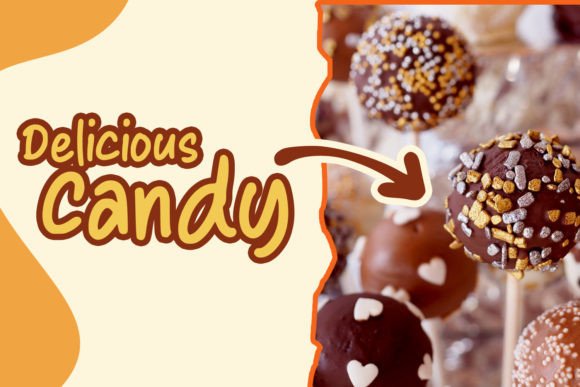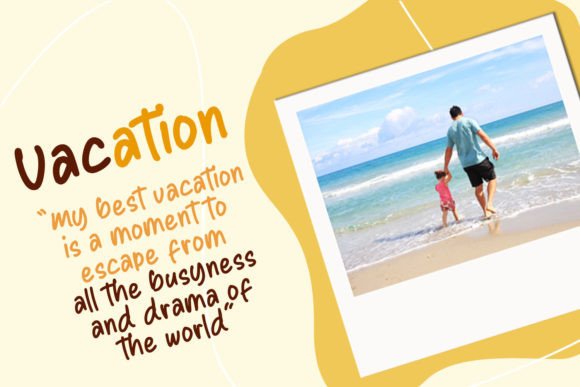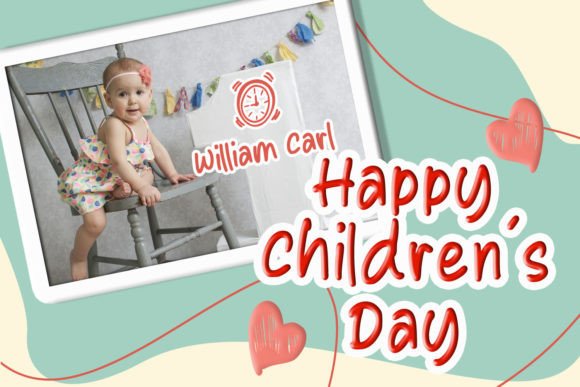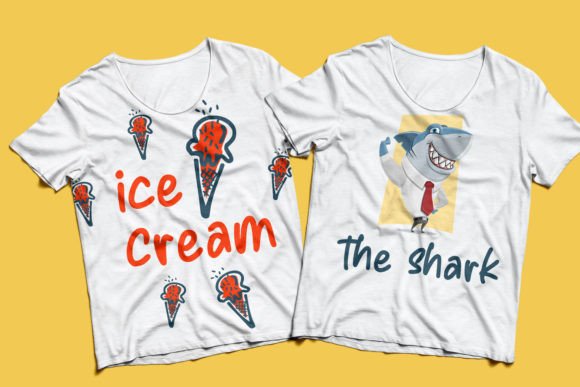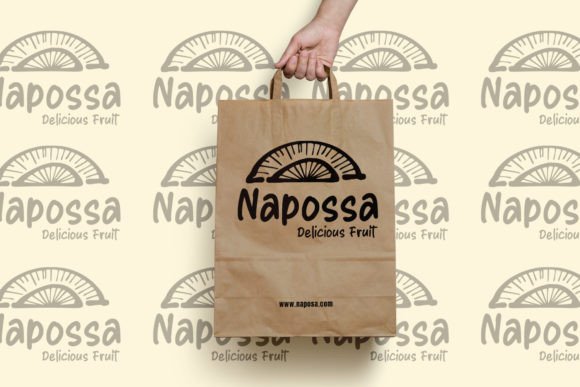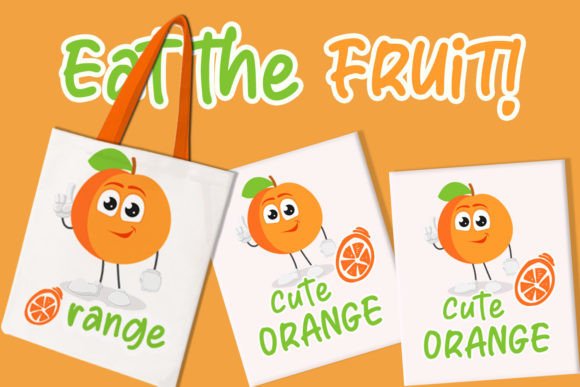
Aurell Font: Add a Playful Touch to Your Designs
Aurell is a fun display font that can instantly elevate your designs with a playful accent. This versatile font is perfect for creative projects that require a touch of whimsy and personality. In this article, we’ll explore the features and uses of Aurell font, and how it can be a valuable addition to your design toolkit.
What is Aurell Font?
Aurell is a display font designed to make a statement. Its playful and quirky style makes it ideal for designs that require a fun and lighthearted touch. The font is carefully crafted to be highly legible, even at large sizes, making it perfect for headlines, titles, and short texts.
Key Features of Aurell Font
- Playful and Quirky Style: Aurell font has a unique and playful style that can add a touch of personality to your designs.
- Highly Legible: The font is designed to be highly legible, even at large sizes, making it perfect for headlines and titles.
- Versatile: Aurell font is suitable for a wide range of design projects, from book covers to posters, packaging, merchandise, and more.
Uses of Aurell Font
Aurell font is a versatile font that can be used in a variety of design projects. Here are some ideas to get you started:
- Book Covers: Add a playful touch to your book covers with Aurell font. It’s perfect for fiction, children’s books, and young adult novels.
- Posters: Create eye-catching posters with Aurell font. It’s ideal for advertising, promoting events, or showcasing artwork.
- Packaging: Use Aurell font to add a playful touch to your product packaging. It’s perfect for food labels, product tags, and more.
- Merchandise: Create fun and playful merchandise with Aurell font. It’s ideal for t-shirts, mugs, and other promotional items.
- Logotype: Use Aurell font to create a unique and memorable logotype for your brand.
Tips for Using Aurell Font
Here are some tips for using Aurell font in your designs:
- Use it Sparingly: Aurell font is a display font, so use it sparingly to make a maximum impact.
- Pair it with Other Fonts: Pair Aurell font with other fonts to create a unique and interesting contrast.
- Have Fun: Most importantly, have fun with Aurell font! It’s a playful font, so don’t be afraid to get creative.
Aurell font is a fun and versatile display font that can add a playful touch to your designs. Its highly legible and quirky style makes it perfect for a wide range of design projects, from book covers to posters, packaging, merchandise, and more. With its ease of use and flexibility, Aurell font is a valuable addition to any design toolkit.